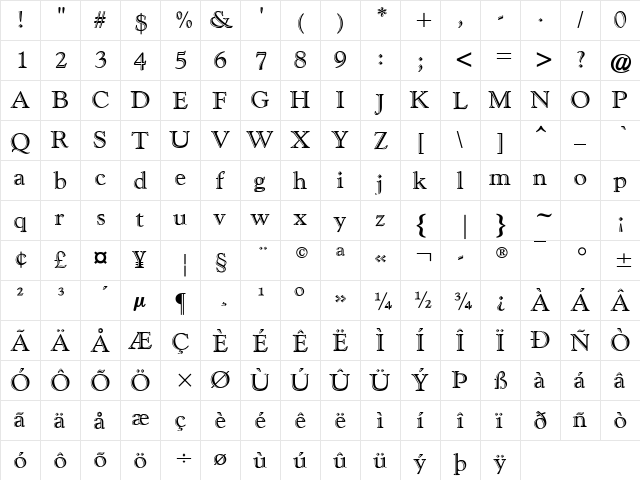
Goudy Hilights SSi Regular
Design Context for Goudy Hilights SSi Typeface
Goudy Hilights SSi is a composed and adaptable typeface that performs quietly and consistently across a wide range of design contexts. The delicate stroke weight brings airiness and refinement to layouts.